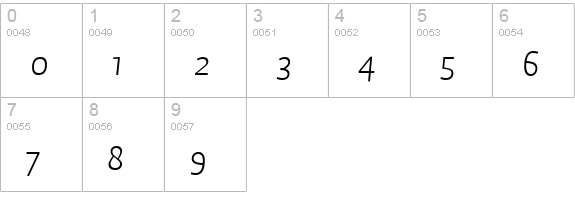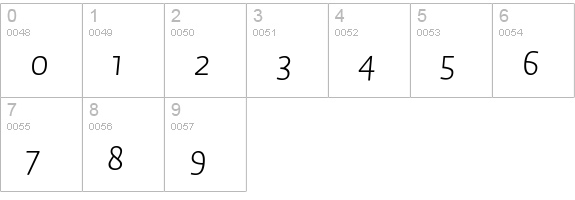
Auto 1 Light Italic is a refined, elegant, italic variant in the Auto typeface family \xE2\x80\x94 well suited to elegant body text, refined sub-headings, and luxury branding.
Auto 1 Light Italic font is a sleek and modern typeface that exudes elegance and sophistication. With its delicate and stylish Italic style, this font is perfect for adding a touch of class to any design project. The clean lines and smooth curves of Auto 1 Light Italic font make it ideal for use in a variety of applications, from branding and advertising to web design and print materials. Best of all, this font is completely free to download at FontsMarket.com, making it accessible to designers and creatives looking to elevate their projects with a touch of refinement and style. Don't miss out on the opportunity to enhance your work with the timeless beauty of Auto 1 Light Italic font - download it today and see the difference it can make in your designs!